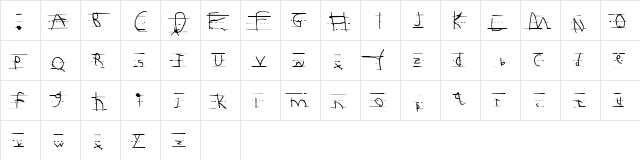
Abecedarian Regular
Design Context for Abecedarian Typeface
Abecedarian is a composed and adaptable typeface that performs quietly and consistently across a wide range of design contexts.